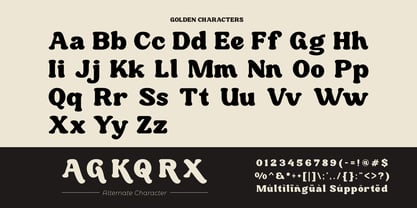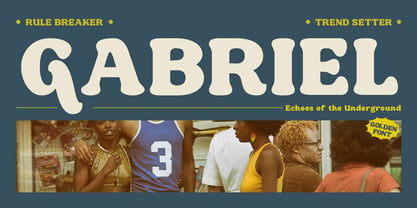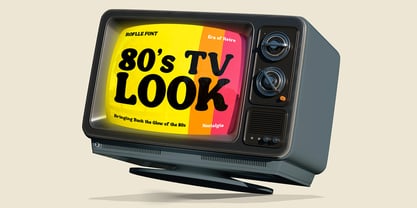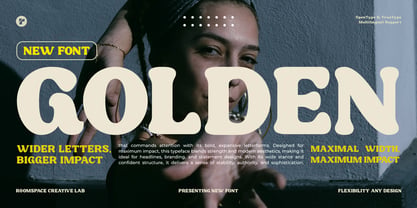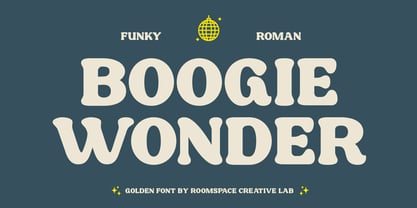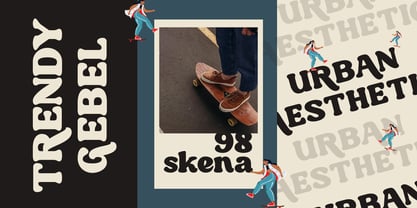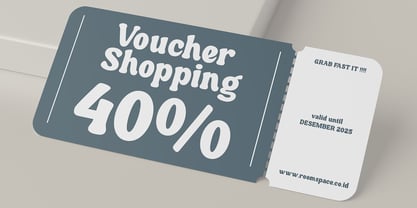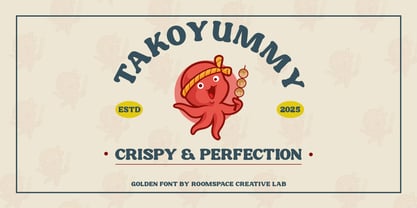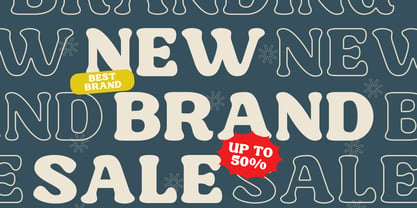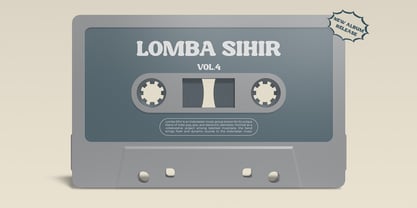
Golden Fat
La familia tipográfica Golden Fat fue diseñada por Bakhrudin Ja'far y publicada por Jafar07. Golden Fat contiene 1 estilos.
Golden Fat Serif is a bold and stylish typeface that expertly blends retro aesthetics with modern elegance. Designed for maximum visual impact, this wide, chunky serif font is ideal for branding, logos, wedding invitations, fashion magazines, social media graphics, and more. Its groovy yet sophisticated appeal brings a nostalgic charm to vintage-inspired designs while preserving a contemporary flair. Perfect for crafting attention-grabbing headlines, posters, or stylish layouts, Golden Fat Serif ensures a strong and confident presence in every project. Elevate your designs with this versatile font, combining fun, sophistication, and creativity in each letterform, suitable for a wide range of applications from editorial to digital and promotional materials.